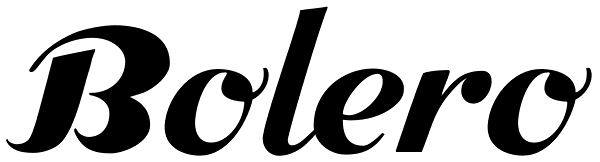
Bolero
Named after Maurice Ravel's masterpiece, Bolero likes to find itself in places of classical elegance. Slightly inspired by the soft italics put forth by Giambattista Bodoni and the Didot family, Bolero adds a feminine touch to the traditional...
Bolero